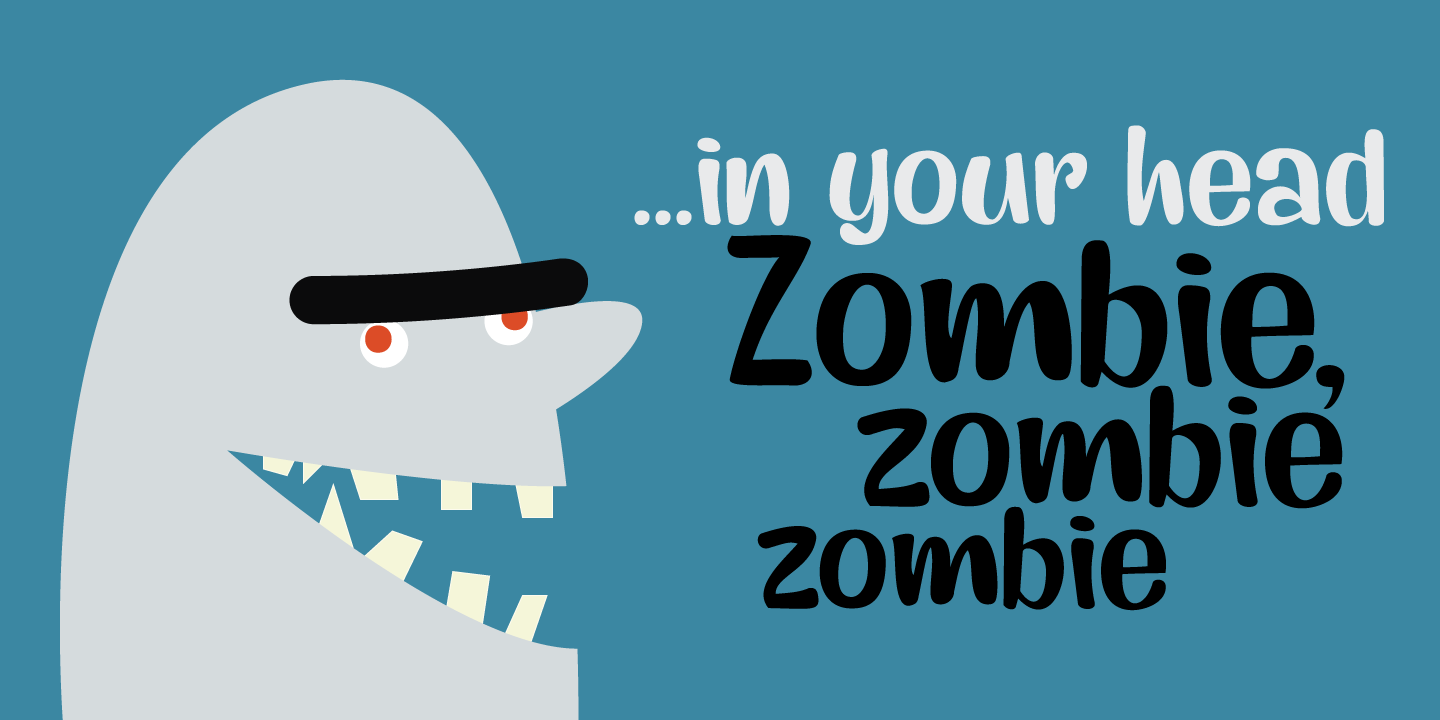
Earworm Font is perfect for music streaming app interfaces, podcast branding, radio station logos, sound equipment packaging, audio production company materials, music festival posters, headphone advertisements, speaker system graphics, recording studio signage, and catchy social media content.
Earworm Font is exciting because it visually represents the addictive nature of memorable melodies and rhythms through its hypnotic letterforms that seem to dance and pulse, creating an irresistible visual hook that mirrors how unforgettable songs stick in our minds.
Earworm Font family includes Regular, Bold, Light, Wavy, Italic, Condensed, Echo, and Vibration variations, offering designers a comprehensive sonic-inspired toolkit to create memorable and engaging visual communications that resonate with music lovers.
Earworm Font captures the infectious quality of memorable music, making it an essential tool for brands and creators in the audio entertainment industry. This captivating typeface brings rhythm and movement to any design project, whether you're developing brand identities for music platforms, creating promotional materials for artists, or designing user interfaces for audio applications. The distinctive flow of Earworm Font Free Download ensures maximum memorability while maintaining excellent readability across all digital and print formats.
Music industry professionals consistently choose Earworm Font for album covers, tour merchandise, and promotional campaigns because of its ability to visually communicate the addictive quality of great music. The font's rhythmic appearance makes it particularly effective for targeting music enthusiasts and creating brand experiences that encourage repeated engagement and sharing.
Earworm Font excels in digital environments where user retention is crucial. Streaming service designers and music app developers rely on this font to create interfaces that keep users engaged and encourage prolonged listening sessions. The font's hypnotic quality naturally draws attention to important features and calls-to-action.
The advertising industry has embraced Earworm Font for jingle-based campaigns, audio brand identities, and sonic marketing initiatives. Its memorable visual impact helps brands create consistent experiences across audio and visual touchpoints, while its association with catchy, repetitive elements makes it ideal for campaigns designed to achieve maximum brand recall and consumer engagement.